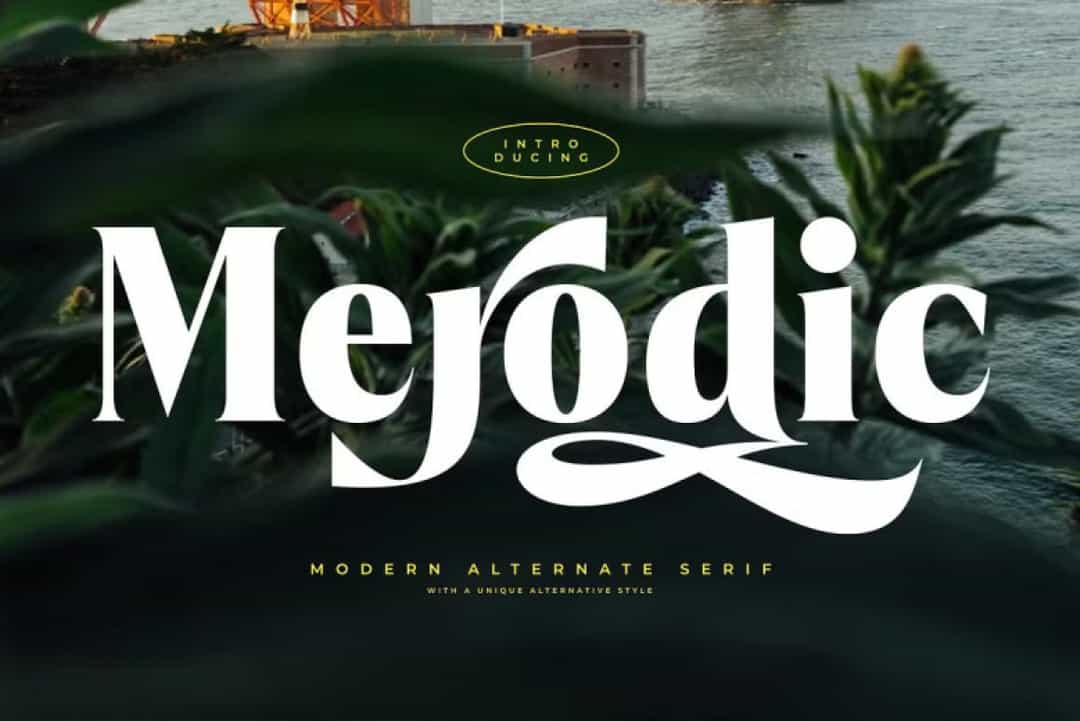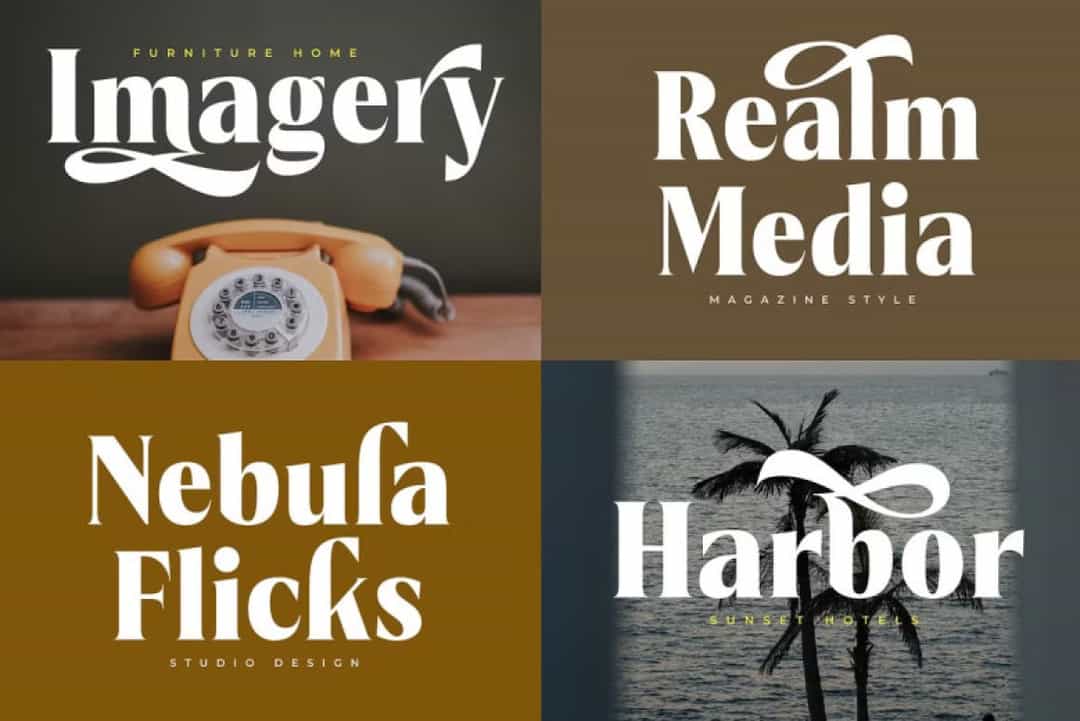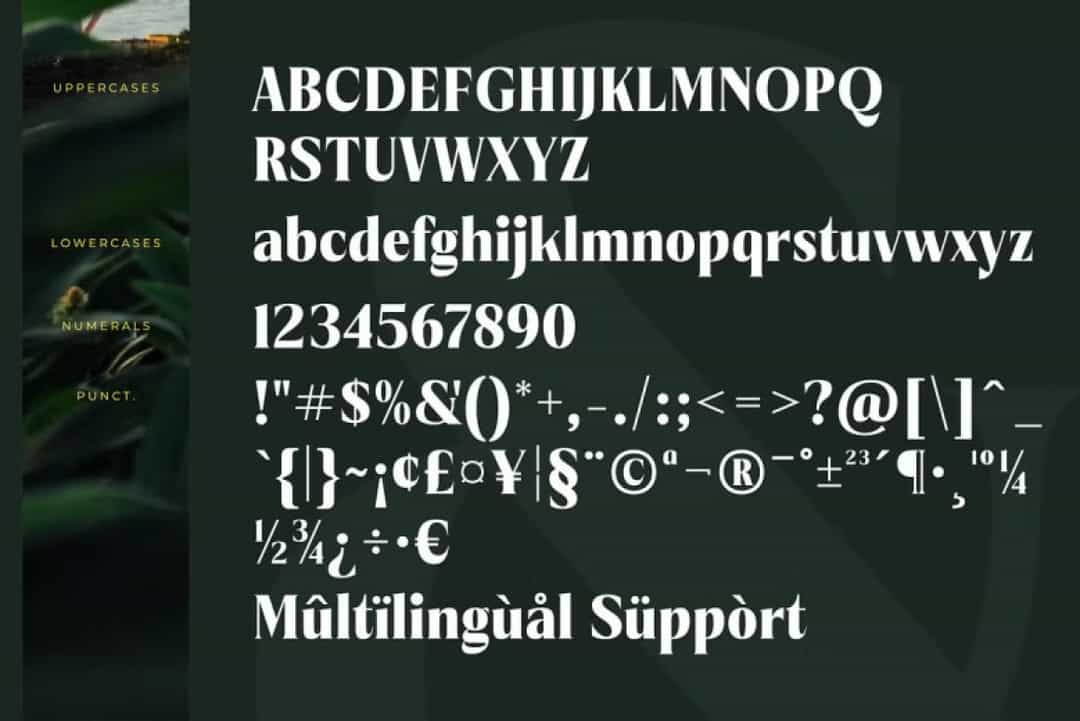
Merodic is an eye-catching classic-style font designed for trademarks, logos, headlines and more. Offering Basic Latin Glyphs as well as alternative fonts to create eye-catching designs with its large variety of options available to create distinctive designs with it, as well as supporting 64 languages across the world all while still upholding an old-fashioned appearance – Merodic It provides endless communication while remaining classic-style font.